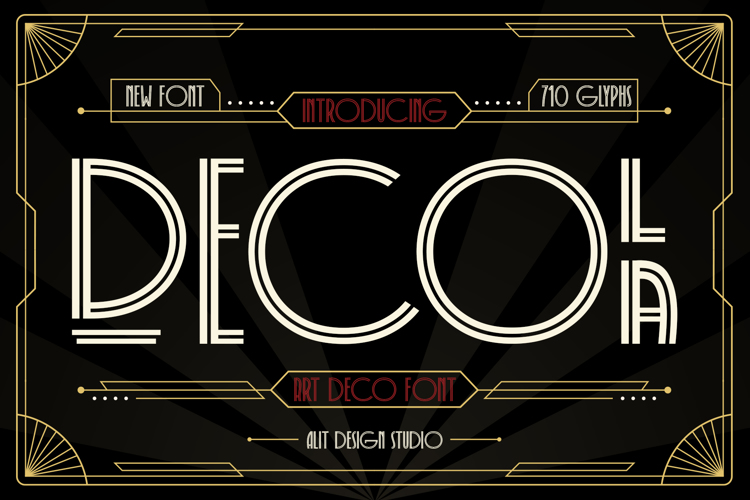
Decola Font
Decola Art Deco Typeface
The Decola Art Deco Typeface is a masterful blend of elegance and vintage charm, inspired by the bold and opulent aesthetics of the Art Deco era. This unique typeface is defined by its dynamic 2-line body, which creates a sense of sophistication and movement, making it ideal for modern designs that aim to evoke timeless luxury.